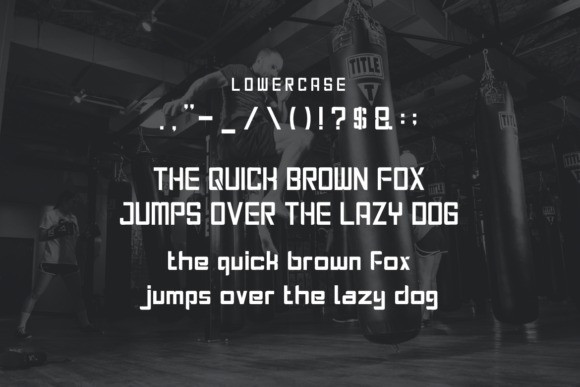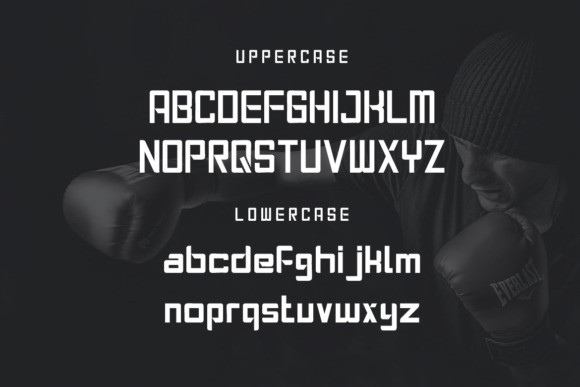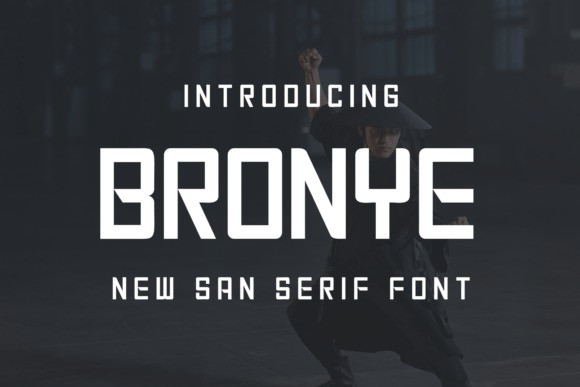
Bronye Font
Bronye Font is a clean and contemporary sans serif font that blends simplicity with a touch of sophistication. Designed with smooth curves, generous spacing, and balanced proportions, Bronye is perfect for branding, editorial layouts, website headers, packaging, and creative presentations that seek clarity and modern charm.